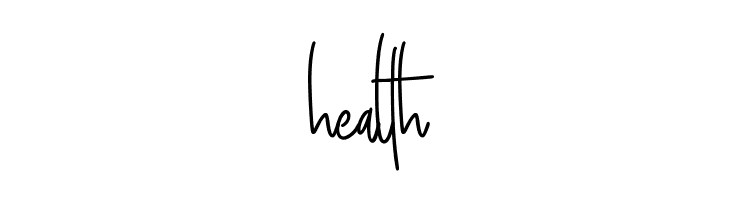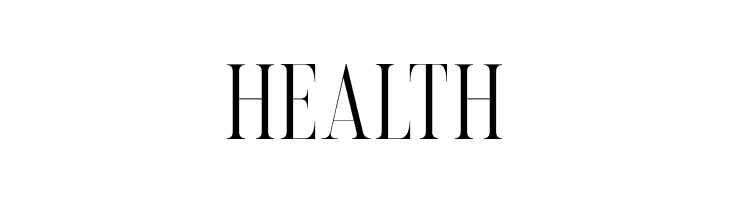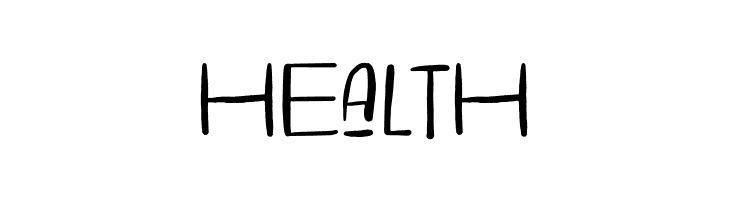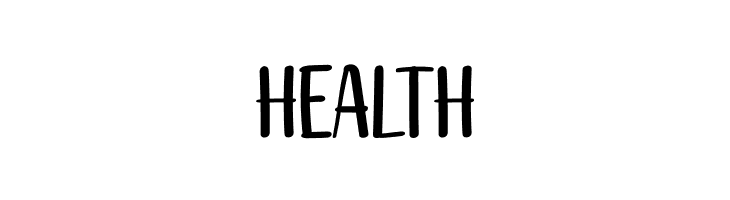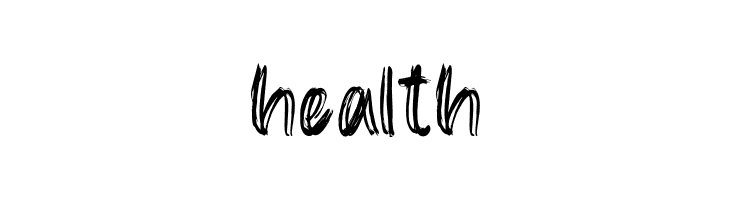
A playful, whimsical handwritten font with tall, narrow letters and artistic flair.
A dynamic and expressive handwritten font with fluid, cursive strokes.
A sophisticated serif font with high contrast and elegant serifs.
A playful, hand-drawn font with bold, irregular strokes and a whimsical style.
A bold, playful handwritten font with a lively and informal style.
A playful, handwritten cursive font with smooth, flowing curves.
A bold, expressive handwritten font with thick, flowing strokes.
A bold, brush-style font with an artistic, hand-painted look.
A bold, brush script font with a textured, hand-painted look.
An elegant script font with flowing, cursive letterforms and sophisticated style.